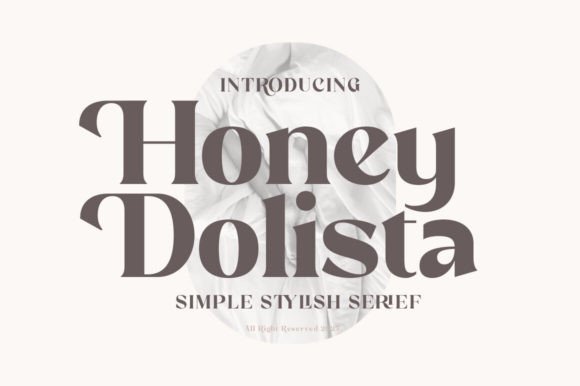
Behold! The Honey Dolista Font: The Epitome of Elegance and Style.
Step into the world of Honey Dolista, a captivating serif font that will make your designs shine with unparalleled beauty. Megatype's masterly creation, Honey Dolista, boasts an array of ligatures and alternative bindings, ready to transform your presentations and logos into works of art.
Take your brand to new heights of sophistication with Honey Dolista. Its unwavering elegance and timeless style will elevate your designs, whether you're crafting logos, business cards, or printed quotes. Its versatility knows no bounds, extending to invitations, cards, packaging, and even your website or social media branding.
Envision the impact of your titles adorned with Honey Dolista's graceful curves. Let your logos exude an air of authority and distinction. Your business cards will command attention, leaving a lasting impression on potential clients.
Honey Dolista's versatility extends beyond print. Its digital presence will enhance your website and social media platforms, adding a touch of sophistication that resonates with your audience.
Immerse yourself in Honey Dolista's comprehensive character set, featuring both upper and lowercase letters, adorned with swashes and ligatures. Experiment with alternate binders to create unique and captivating combinations that set your designs apart.
Honey Dolista's multilingual capabilities cater to a global audience, ensuring your message transcends linguistic barriers.
Customize Honey Dolista with ease, tailoring it to your unique vision. Whether you're designing titles, logos, business cards, or any other creative endeavor, Honey Dolista adapts effortlessly, becoming an extension of your imagination.
Join the creative journey with Honey Dolista. Its elegance, versatility, and multilingual support make it the perfect choice for designers seeking to elevate their work. Experience the Honey Dolista difference today and witness the transformation of your designs into masterpieces.